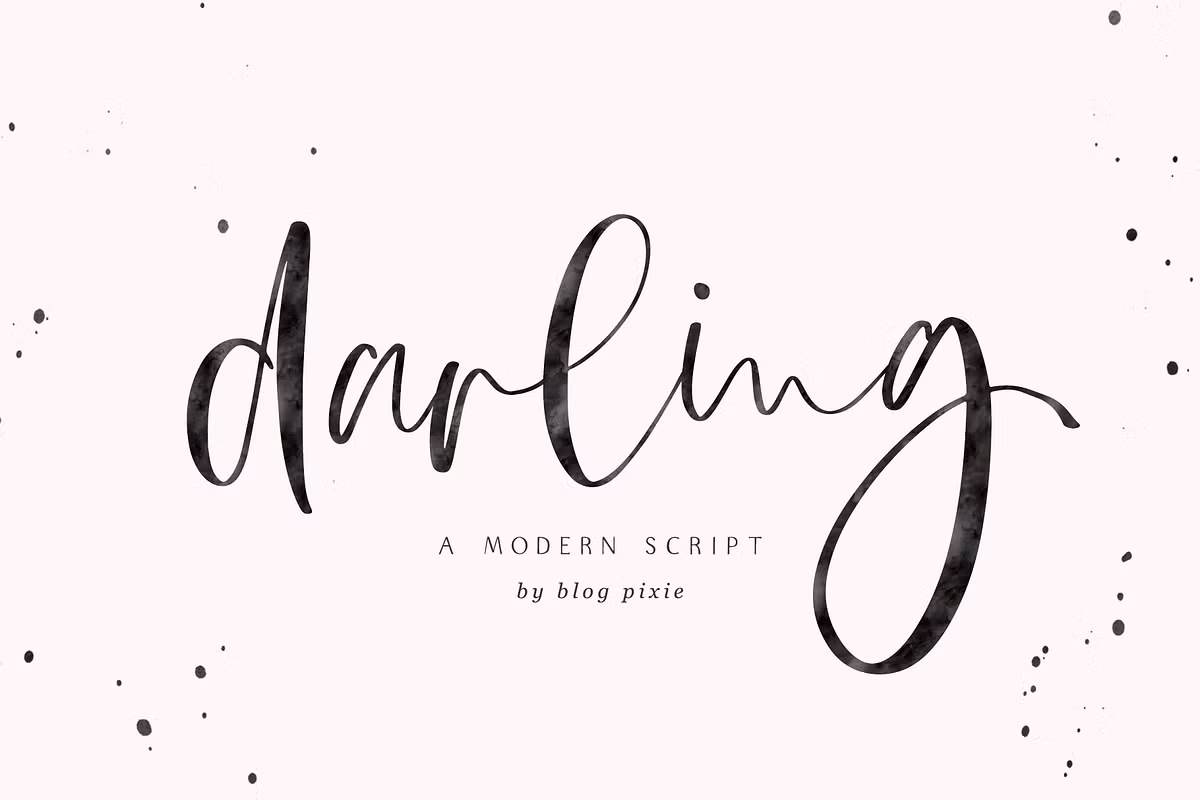
Darling Script Font Free Download
Darling Script Font Free Download is a beautiful, elegant handwritten script typeface with a graceful flow and charming personality. Perfect for wedding invitations, branding, logos, greeting cards, social media graphics, and any design project that calls for a personal and romantic touch.
With its smooth, fluid strokes and delicate ligatures, Darling Script Font Free Download brings sophistication and warmth to your typography, making it an ideal choice for projects that need a refined, stylish, and heartfelt vibe.